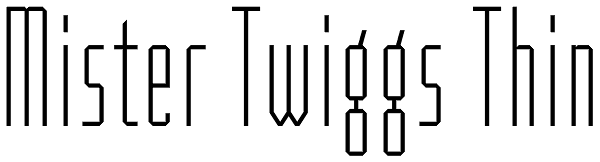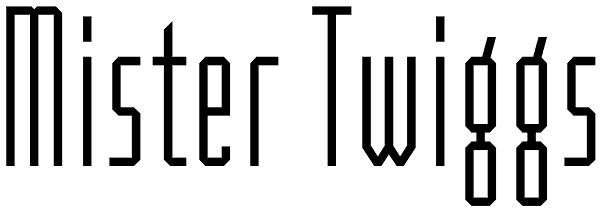
Mister Twiggs
Mister Twiggs is a comtemporary modern sans created by the American type designer Alex Kaczun. There are absolutely no curves in this elegant typeface. It has sharp corners with extra tall capitals and a narrow waistline. Mister Twiggs comes in 3...